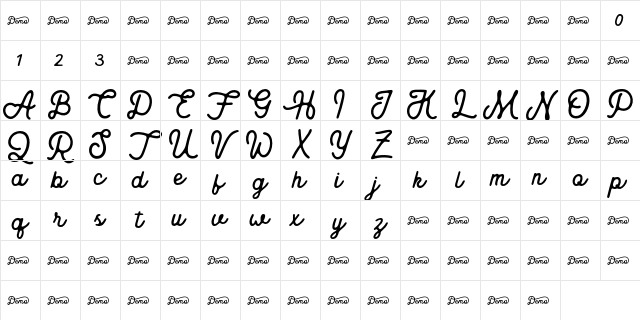
Royaland is a composed and adaptable typeface that performs quietly and consistently across a wide range of design contexts.
Pro Tip: Use Royaland in both headline and body roles to test its range before committing to a single application.